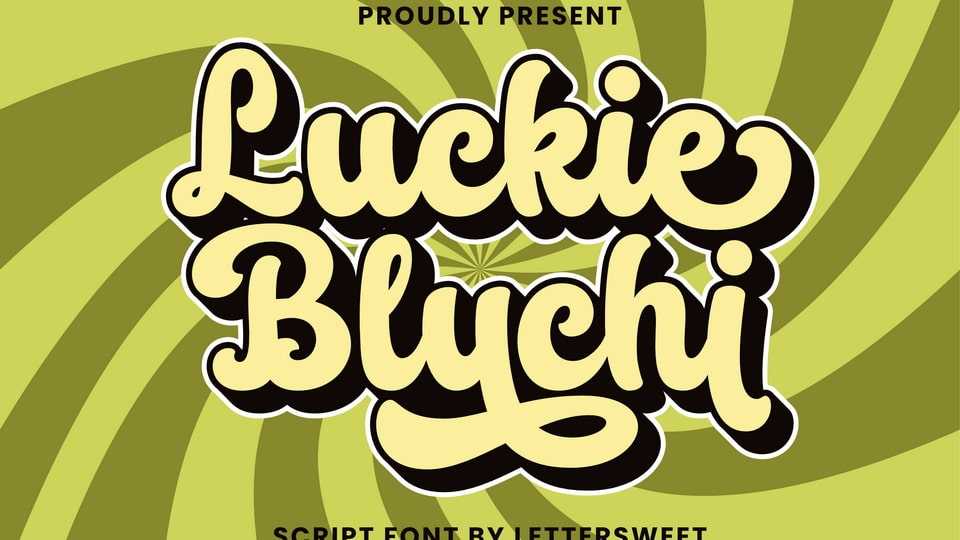
Download Luckie Bluchi font, a vintage and bold handwritten typeface with extrude style. Perfect for its ravishing style and use it to create gorgeous designs.